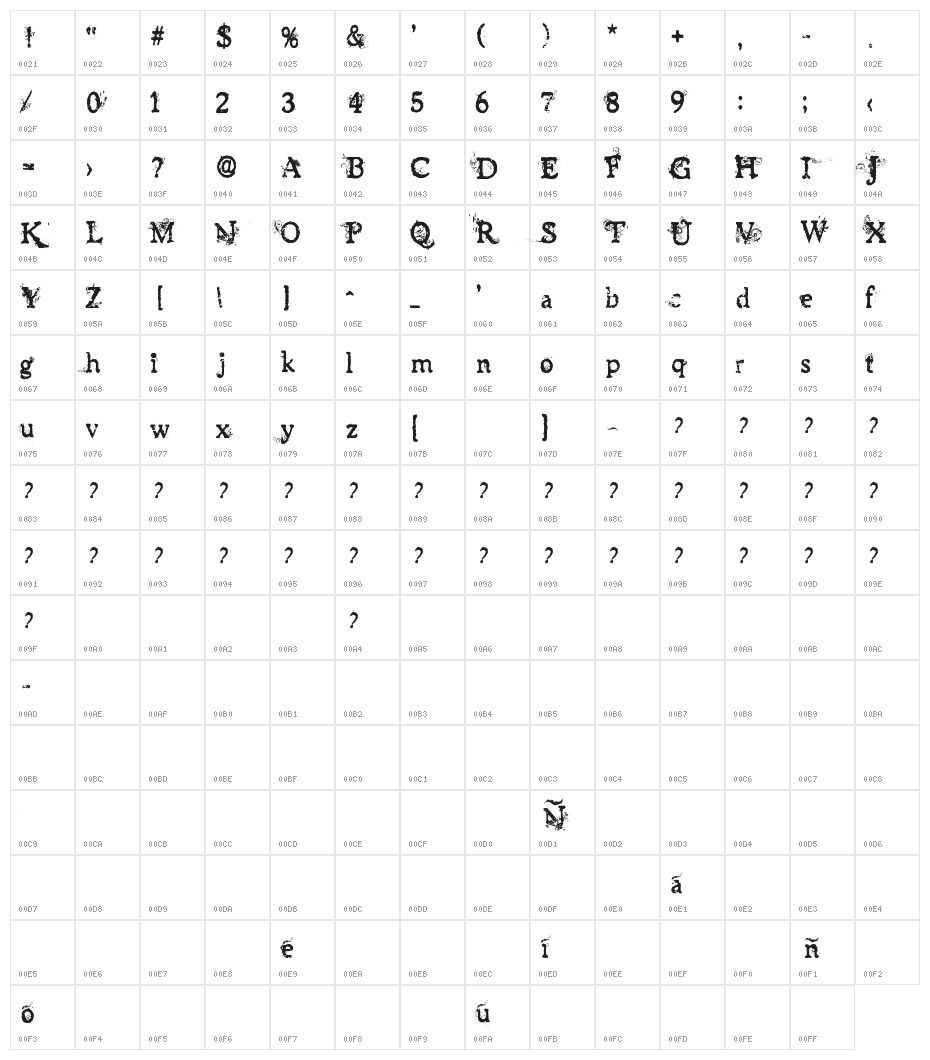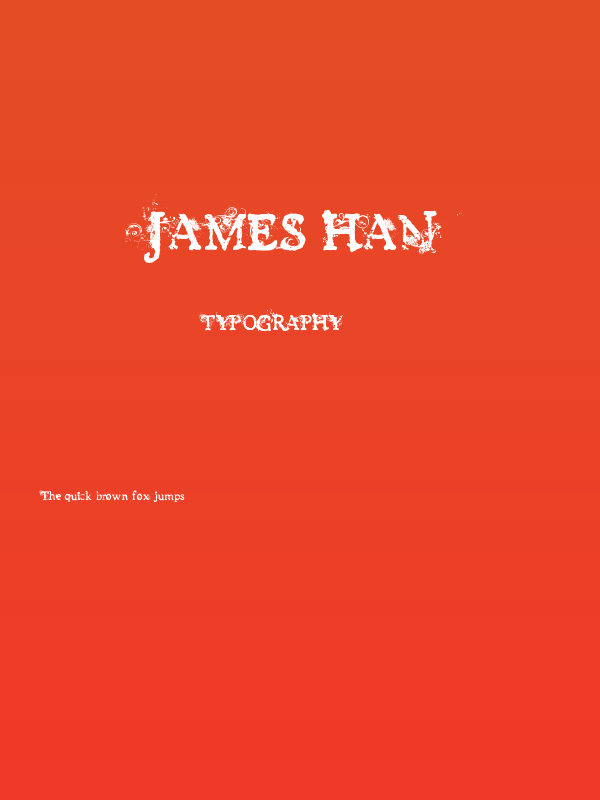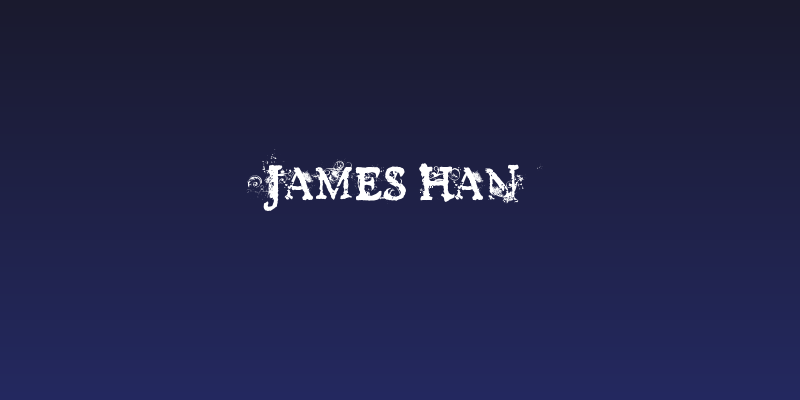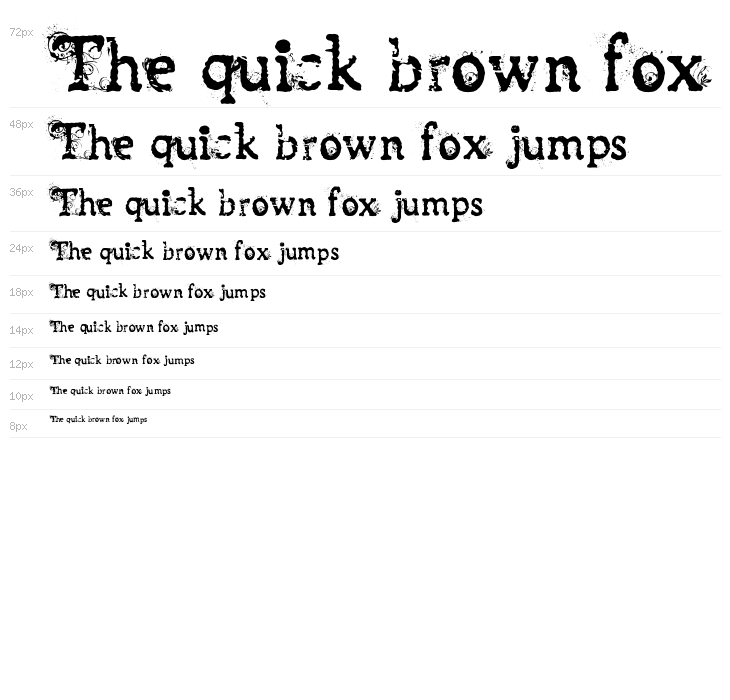
JAMES HAN Font
JAMES HAN Description
This font features a highly decorative and distressed style, characterized by intricate swirls and splatters that give it a grunge and artistic appearance. The uppercase and lowercase letters maintain a consistent design with rough edges and unique embellishments, creating a visually striking effect. The numerals and special characters follow the same theme, ensuring a cohesive look across all glyphs. This font's bold and textured appearance makes it ideal for projects that require a dramatic and eye-catching typeface.
| Proposed Projects | Ideal for album covers, posters, event flyers, and any design requiring a bold, artistic touch. |